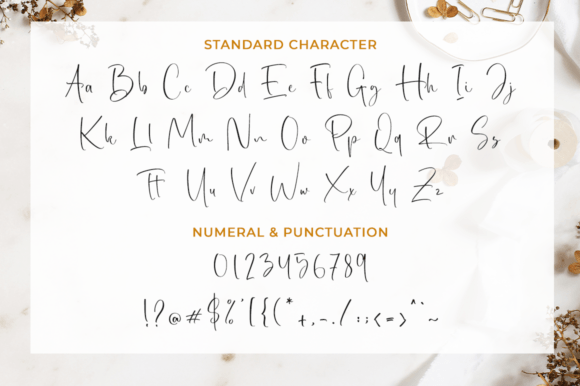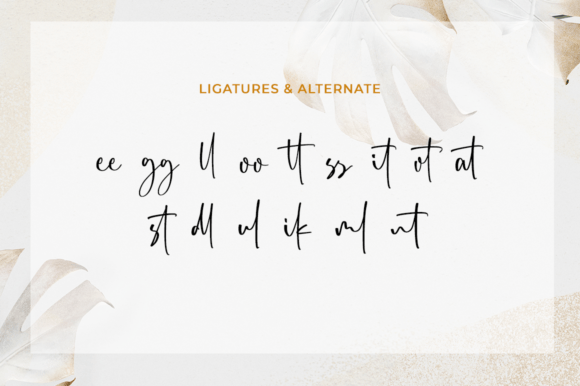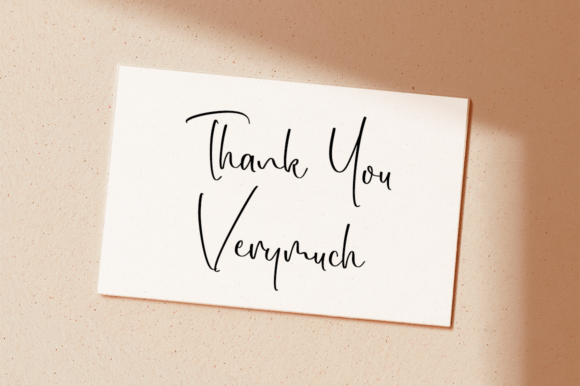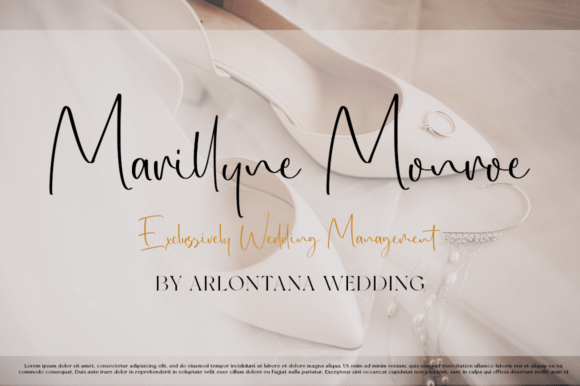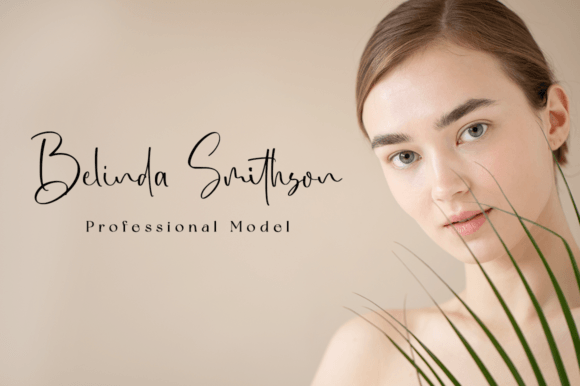
About Marionette Font Download
The Marionette Font Download is an elegant handwritten script that combines timeless beauty with a distinct personal touch. With graceful strokes and a refined rhythm, this font elevates your creative projects with sophistication. Because it is PUA encoded, designers can easily access all glyphs, ligatures, and swashes, making it highly versatile for both personal and professional use.
A Distinct Handwritten Script with Elegance
Marionette delivers the sophistication of traditional calligraphy with a modern twist. Unlike plain fonts, this Marionette script font feels personal and polished, striking the right balance between charm and professionalism. As a result, it is perfect for projects that demand clarity and beauty.
Handwritten fonts always enhance event stationery. The Marionette Font is an excellent choice for wedding invitations, thank you notes, and holiday greeting cards. Moreover, its graceful details create a sense of warmth and romance in every message.
Branding and Logo Design with Marionette Font
Typography defines the personality of a brand. The Marionette handwritten font is perfect for boutique logos, product packaging, and advertising designs. In addition, it provides a stylish yet timeless brand identity that resonates strongly with audiences.
Posters, Quotes, and Business Cards
Large and small-scale projects alike benefit from fonts that are versatile. The Marionette Font Download works beautifully for posters, inspirational quotes, and professional business cards. Therefore, it adapts seamlessly across print, web, and branding projects.
In today’s digital landscape, fonts play an essential role in audience engagement. The Marionette typeface is perfect for Instagram posts, YouTube thumbnails, Pinterest graphics, and blogs. Its elegant handwritten strokes ensure your online presence feels creative and stylish.
Why Designers Choose Marionette Typeface
Designers value fonts that remain clear while adding personality. Many handwritten scripts lose legibility at smaller sizes, but the Marionette handwritten script keeps its charm and readability intact. This makes it a reliable tool for professionals and hobbyists alike.
Add Elegance to Your Designs Today
If you are looking for a handwritten script that feels elegant, distinct, and versatile, the Marionette Font Download is the perfect choice. From wedding invitations and logos to posters and digital content, it enriches your projects with timeless beauty. Finally, download Marionette today and bring sophistication and creativity to your work.